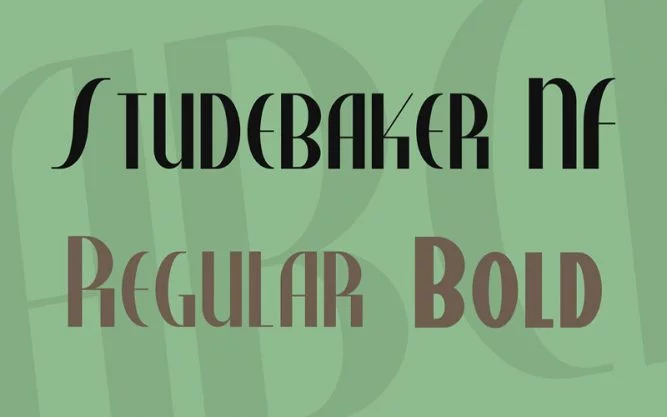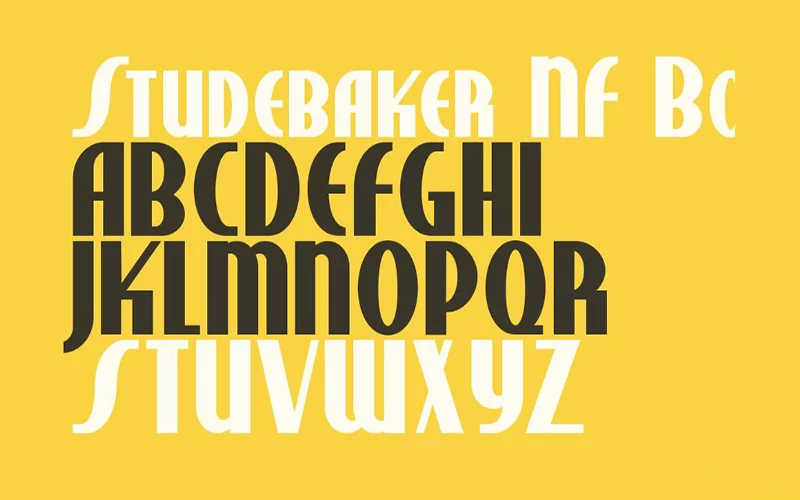
Studebaker Font is a retro, script, 3D, ancient, and display typeface. This unique font was designed & released by Nick’s Font, which helps to provide a great 3D texture to create unique and elegant artwork.
This free typeface is available in three weights including regular, regular NF, and bold NF. The NF texture is basically a design, which is inspired by the characters on a package for True-Mark Brand Typewriter Ribbons.
Its retro texture is useful for multiple projects such as for creating stunning artwork, web graphics, branding logotypes, hundred of texts, vectors, labels, flyer designs, posters, badges, titles, company banners, and more<
The strokes are heavy and uniform, which is excellent and elegant if you want to create a strong statement on your project. As a result, this font looks traditional with a slightly modern edge.
Its minor styles are highly adjustable and ideal for creating extra character cuts ligatures, alternatives, and swatches. It is clear upright characters are included with easy continuity of each letter.
Basically, Studebaker Font gives a uniform and well-structured letter figure apt for a solid text and its shady 3D effects add words to the character and create intrigue. It’s suitable for a spread of projects.
This vintage typeface features a unique decorative textural appearance and finished content shapes. It looks great in both upper and lower cases with a very clear glimpse.